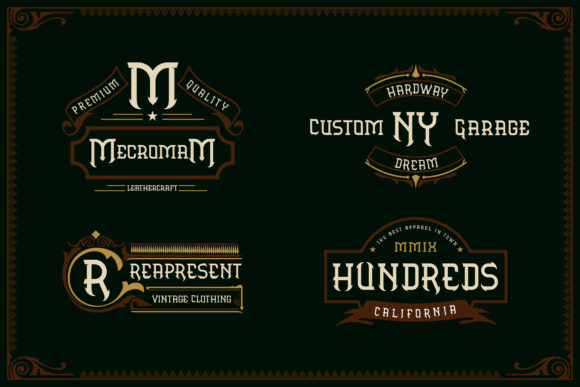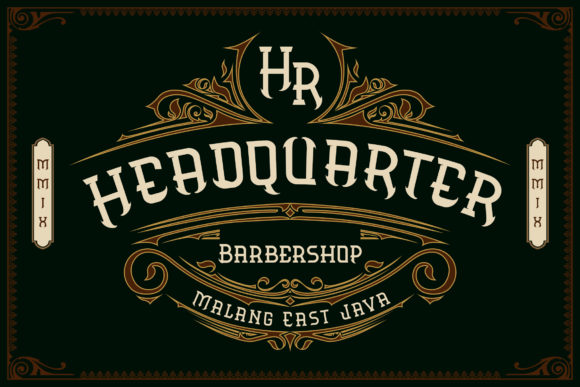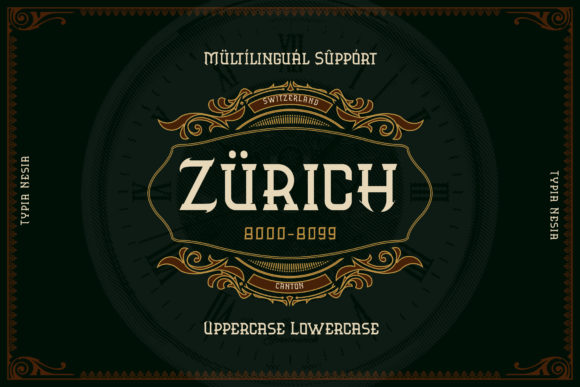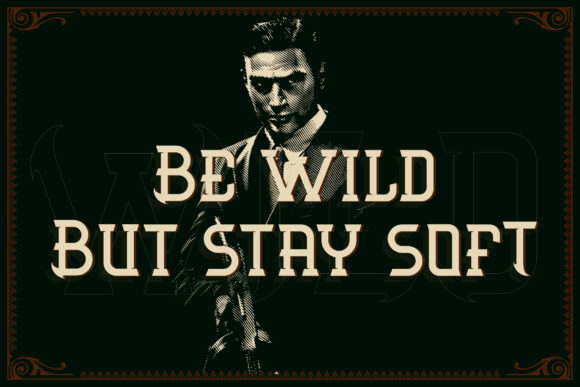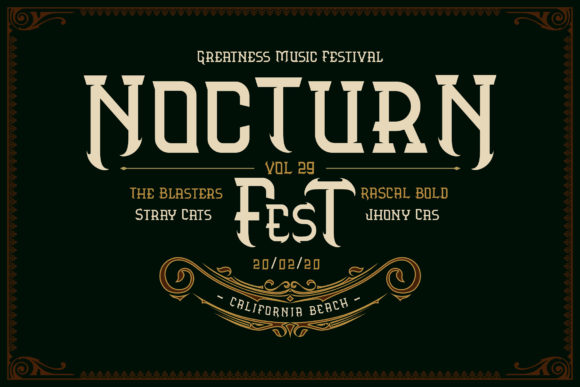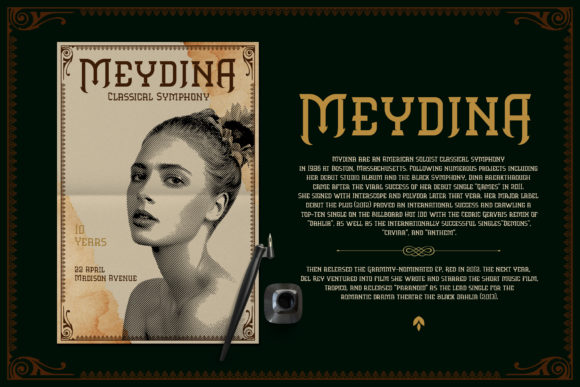
The Retro Charm of Aronica Font: A Designer’s Delight
I still remember the design project that led me to discover the Aronica font. I was working on a vintage-themed branding campaign for a client, and I was struggling to find the perfect font that would capture the nostalgic feel I was going for. That’s when I stumbled upon Aronica, and it instantly became my go-to choice. In this article, I’ll share my experience with Aronica, its unique features, and how to make the most of it in your design projects.
An Honest Review of Aronica Font
What I Love About Aronica ✨
• ✅ Unique Vintage Aesthetic: Aronica brings a distinctive retro charm to any design project, making it perfect for vintage-themed branding, packaging, and advertising.
• ✅ Playful Nostalgia: The font’s classic typography inspiration evokes a sense of nostalgia, making it ideal for projects that require a touch of warmth and personality.
• ✅ High Versatility: Aronica can be used for a wide range of design projects, from headings and titles to body text and captions.
• ⚠️ Limited Use in Body Text: While Aronica is perfect for headings and titles, it may not be the best choice for body text due to its decorative nature.
• ⚠️ Requires Attention to Kerning: As with any font, kerning is crucial to ensure that Aronica looks its best. Be prepared to adjust the kerning to achieve optimal results.
The Backstory of Aronica Font
Aronica font was designed with the goal of creating a unique and nostalgic typography that would bring a touch of vintage charm to design projects. The font’s creator drew inspiration from classic typography and infused it with a playful and modern twist. The result is a font that feels both retro and fresh.
Font Name Aronica Font
Author Typia Nesia
Q: What is the best use for Aronica font?
A: Aronica font is perfect for vintage-themed branding, packaging, and advertising. It’s ideal for headings, titles, and captions.
Q: Can I use Aronica font for body text?
A: While Aronica can be used for body text, it may not be the best choice due to its decorative nature. It’s recommended to use it for headings and titles.
Q: Is Aronica font suitable for digital use?
A: Yes, Aronica font is optimized for digital use and can be used for a wide range of digital projects, from social media graphics to website headers.